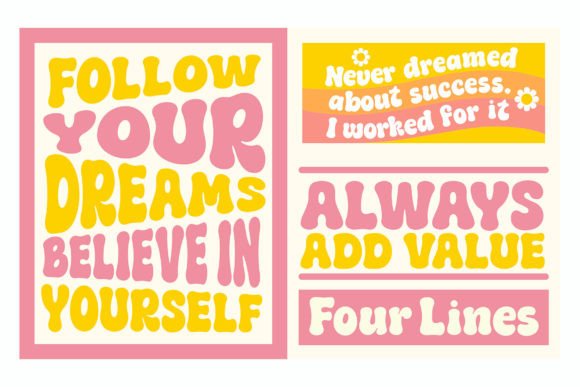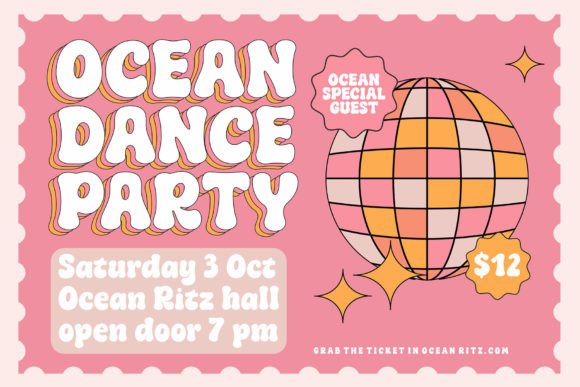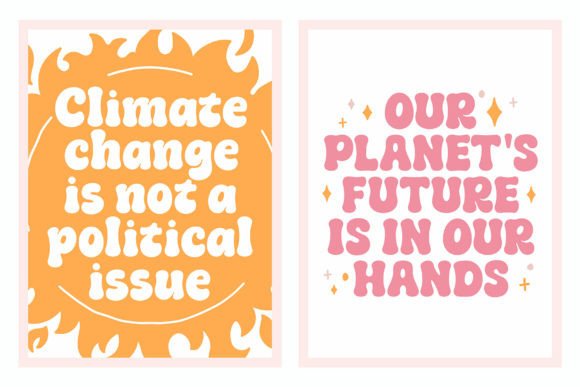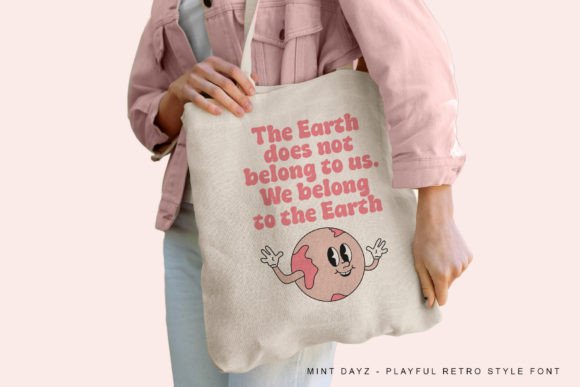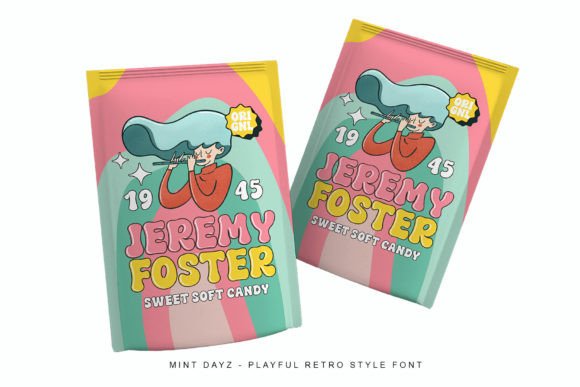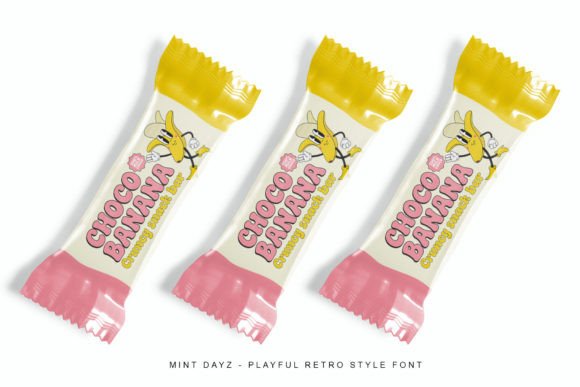
Introduction to Mint Dayz Font
Unleash a wave of nostalgia with Mint Dayz, the font that seamlessly blends retro charm with modern legibility.
This font captures the essence of yesteryears, infusing a sense of vintage elegance into your designs Also Mint Dayz places a premium on readability and legibility.
Key Features of Mint Dayz Font